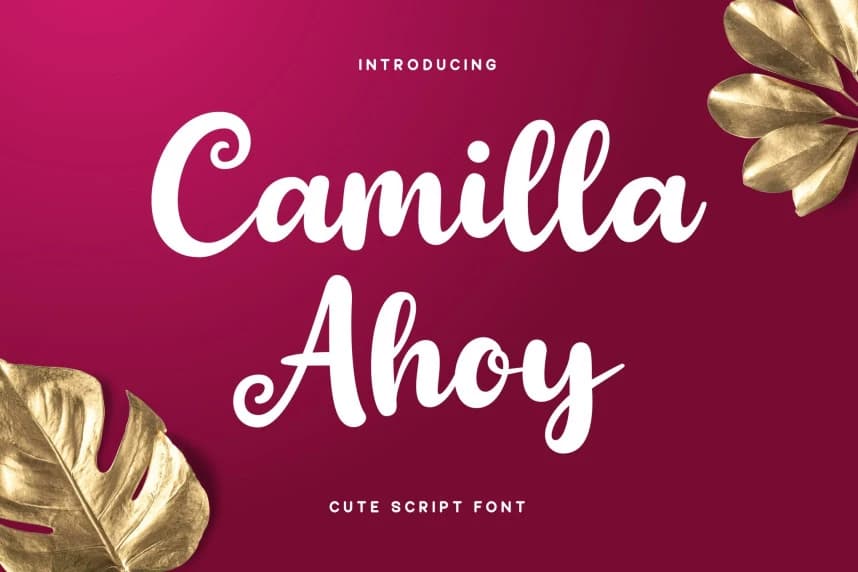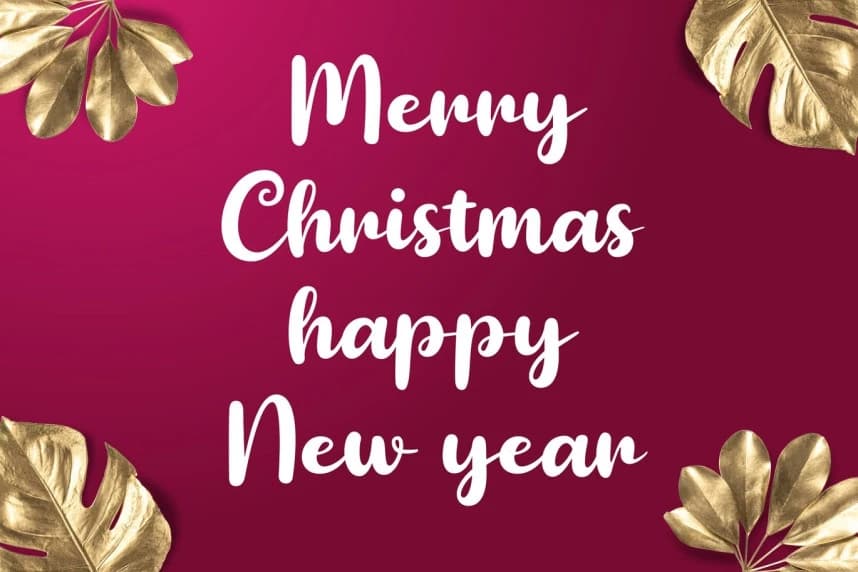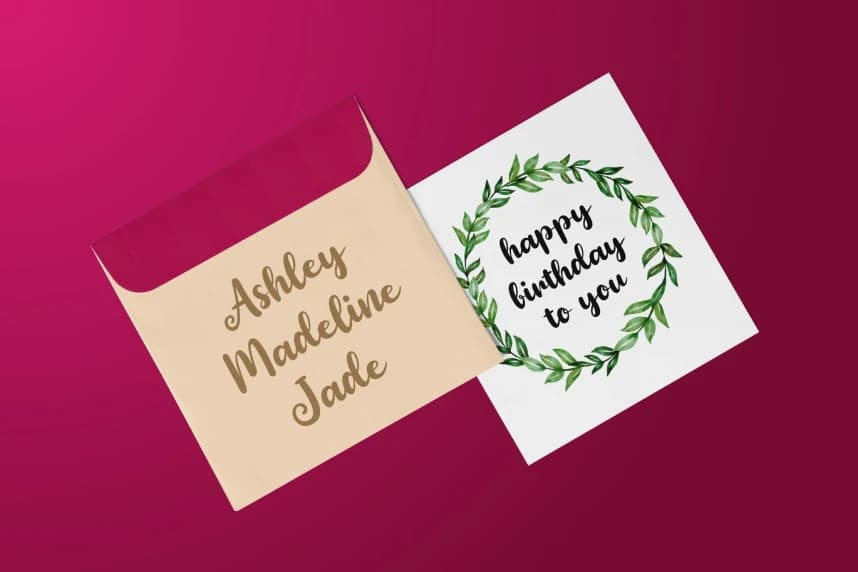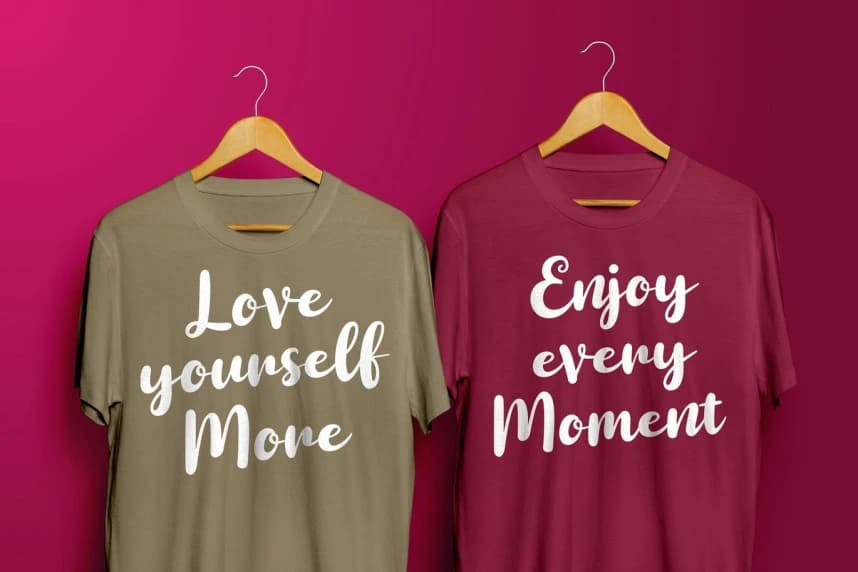
Camilla Ahoy Font
Camilla Ahoy Font is a fun and stylish handwritten font with a unique and playful character. It includes numerals, punctuation, and multilingual support, making it versatile for various design needs. The font works on both PC and Mac, is easy to install